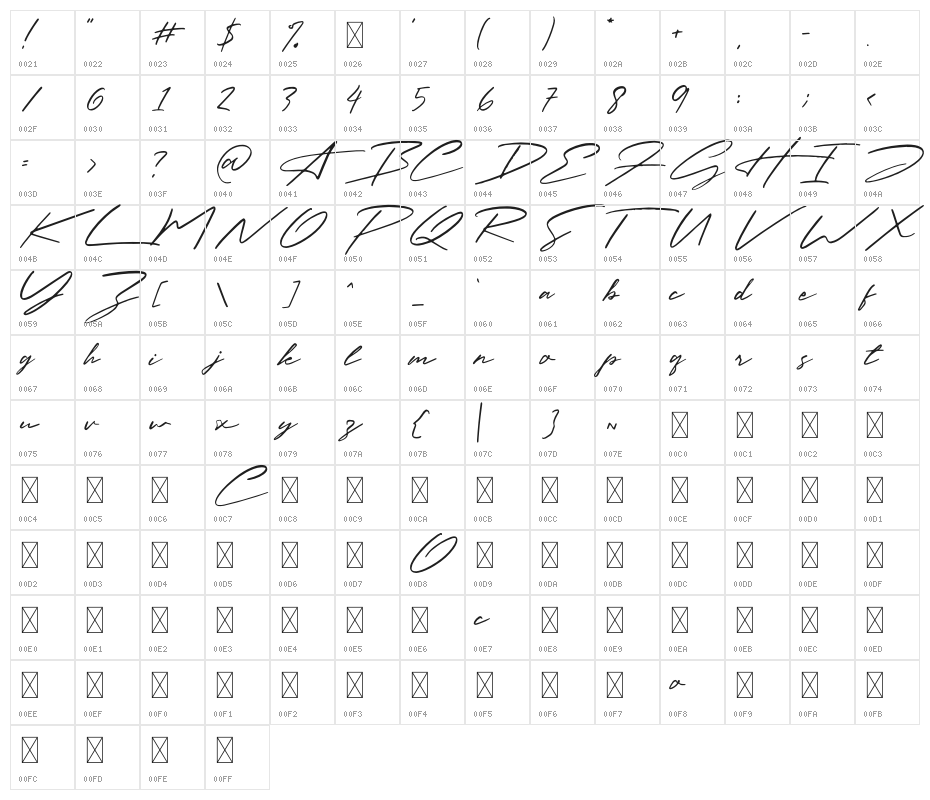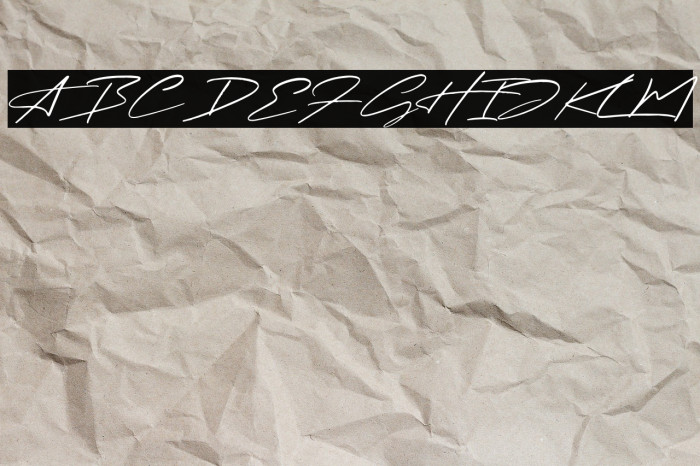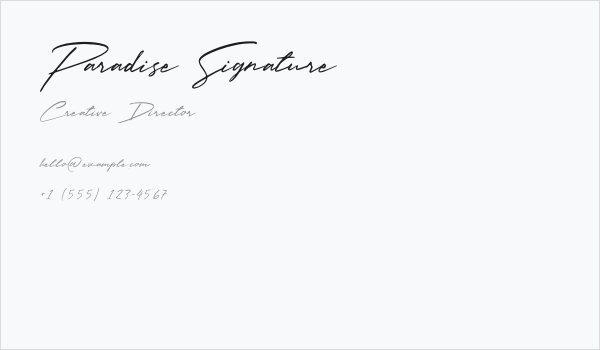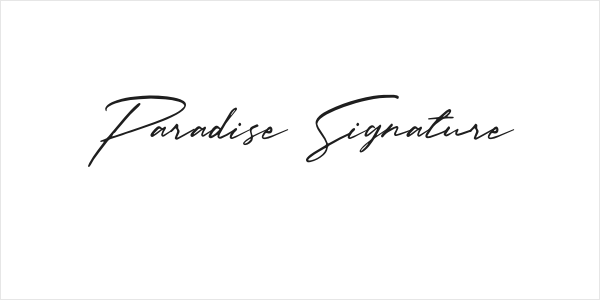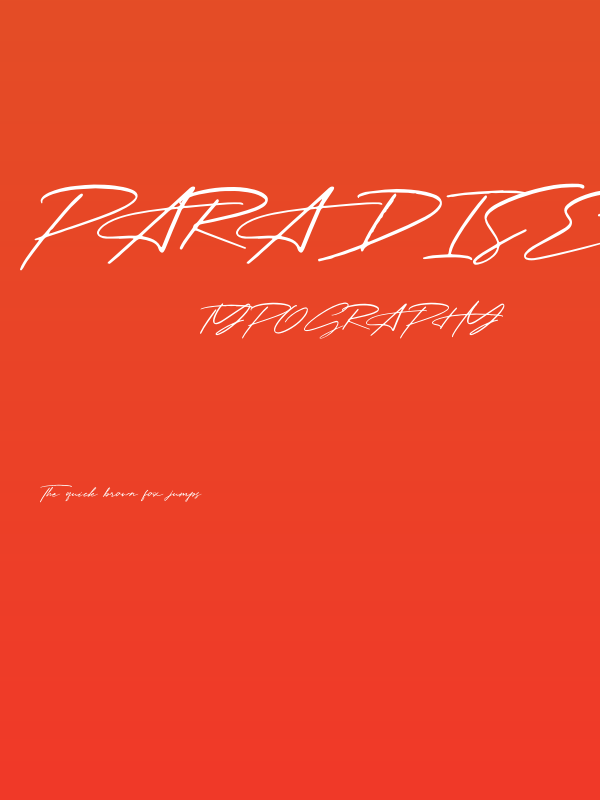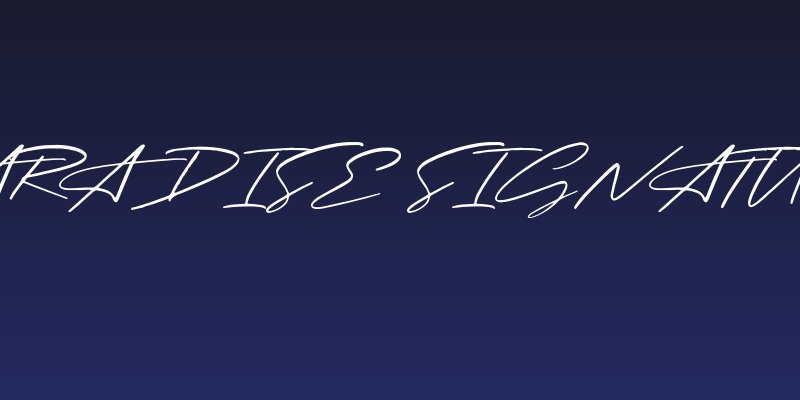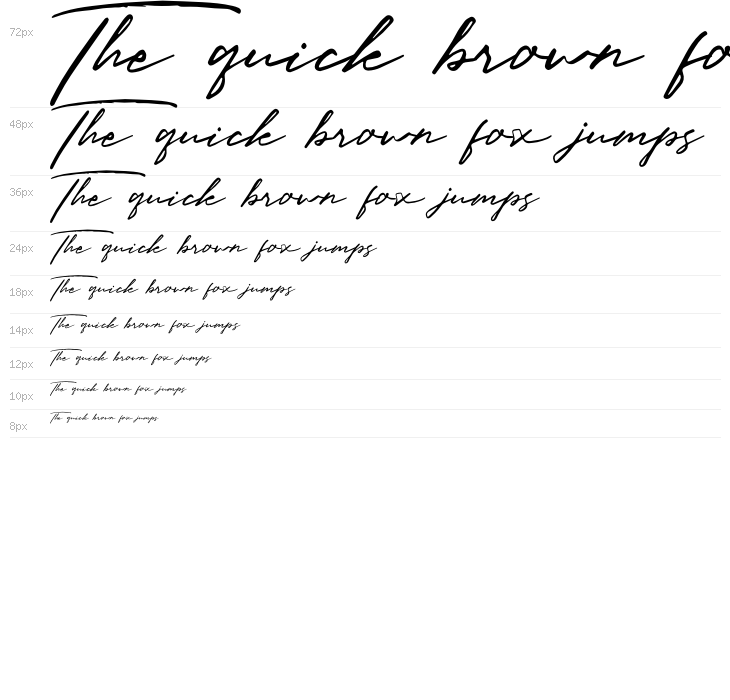
Paradise Signature Font
Paradise Signature Description
A flowing, handwritten script font with a natural, cursive style and variable stroke thickness, evoking the look of a personal signature. The characters are connected, with elegant loops and a casual, yet refined appearance.
| Overall Style | Decorative, Handwritten, Elegant |
| Use Case | Logos, Invitations, Signatures, Social media posts |
| Proposed Projects | Personal branding, wedding invitations, logo design, greeting cards, social media graphics. |